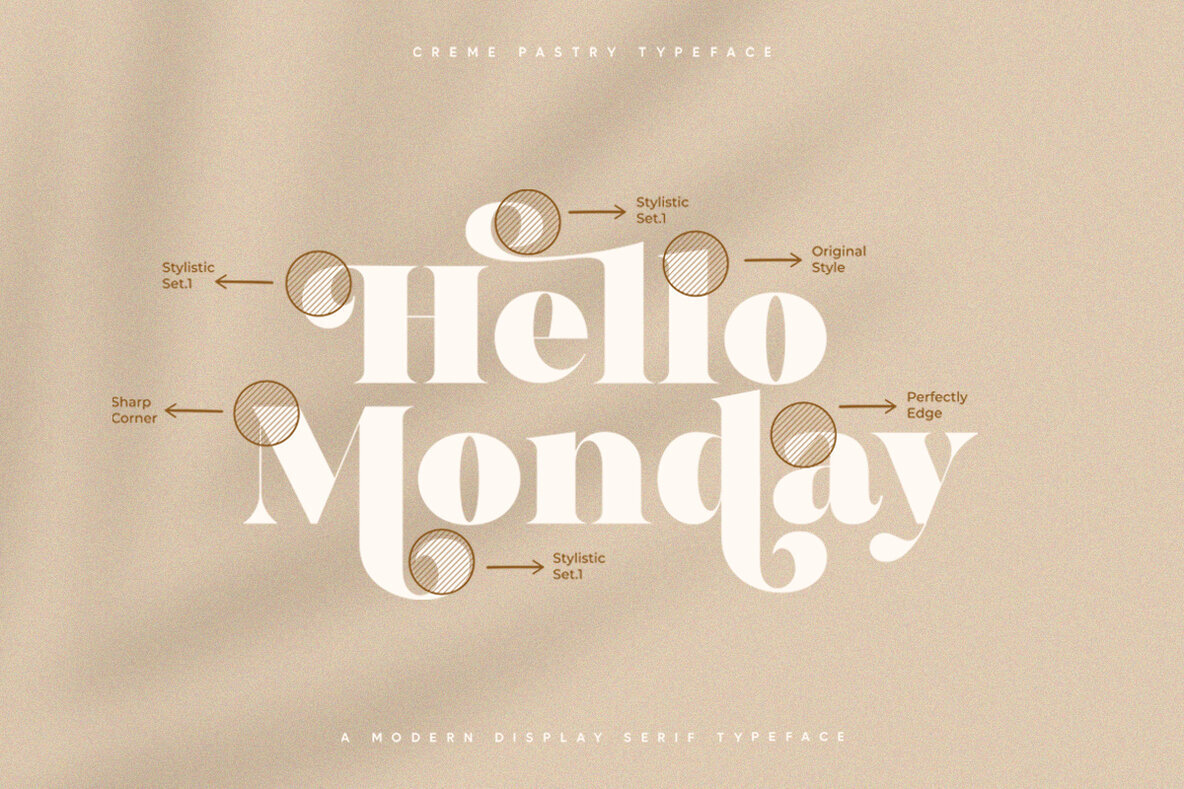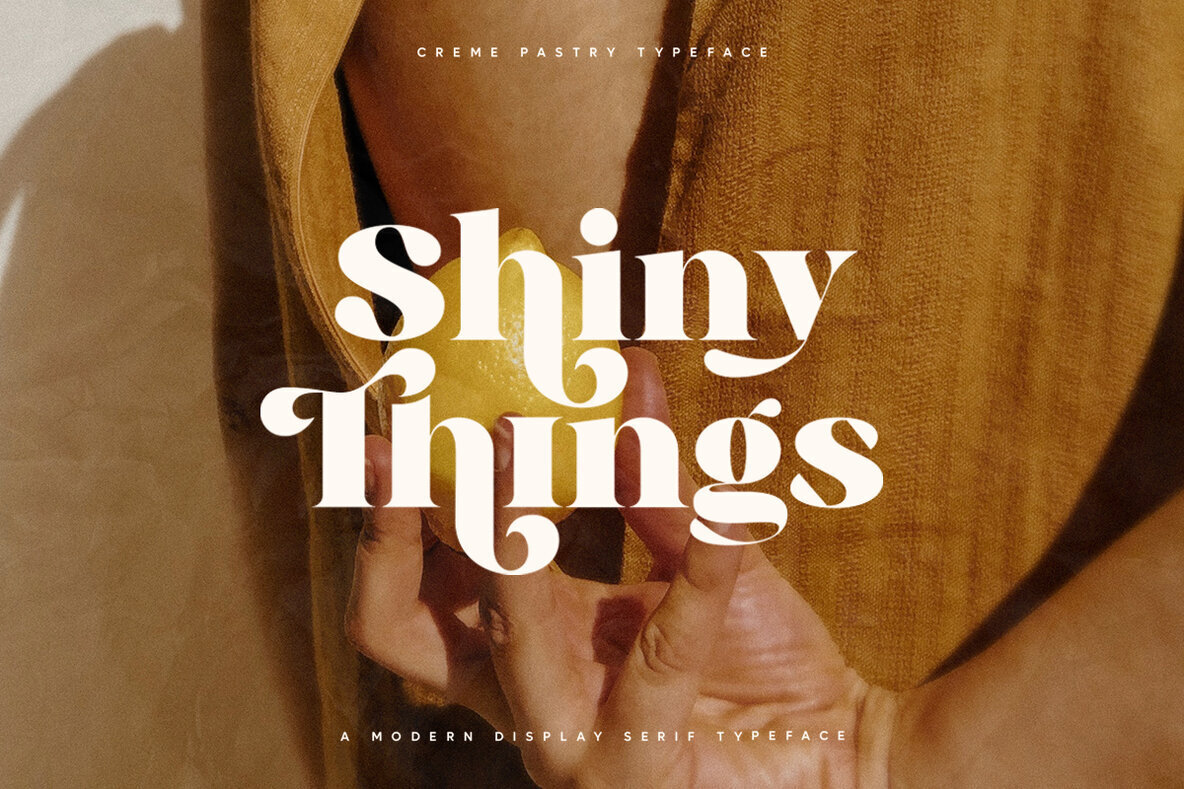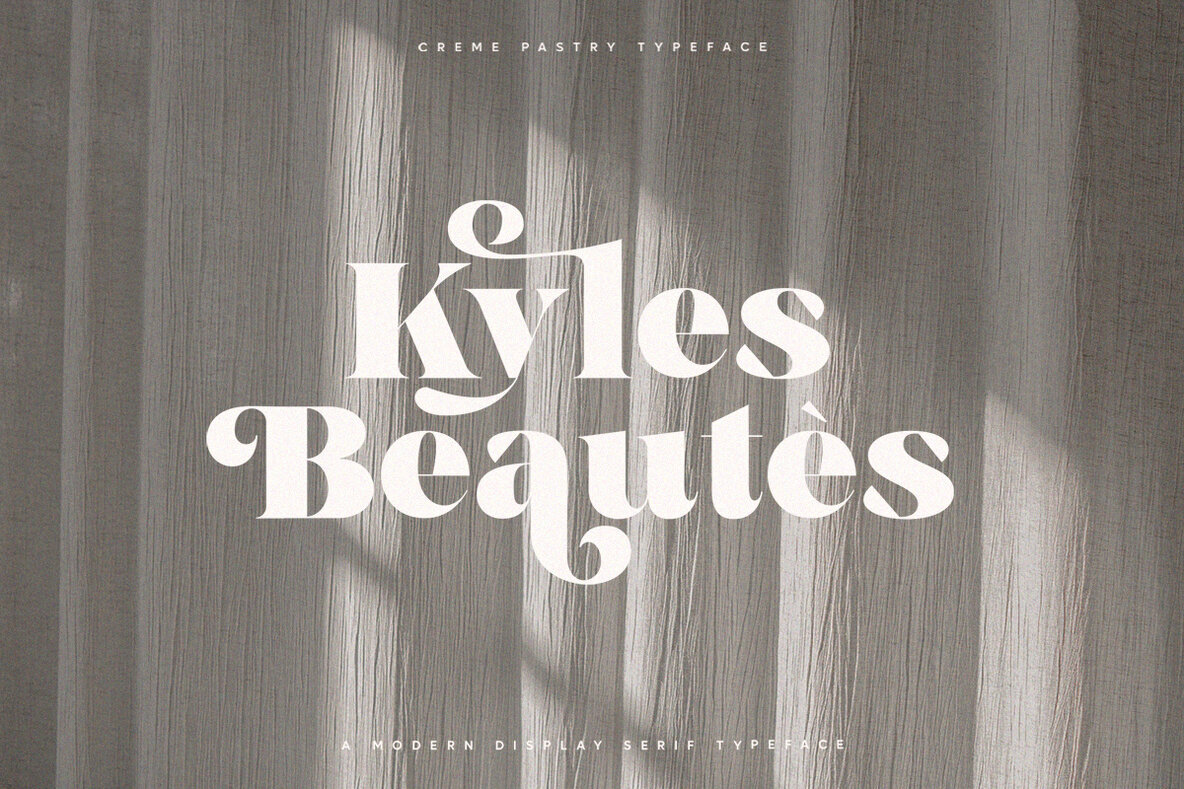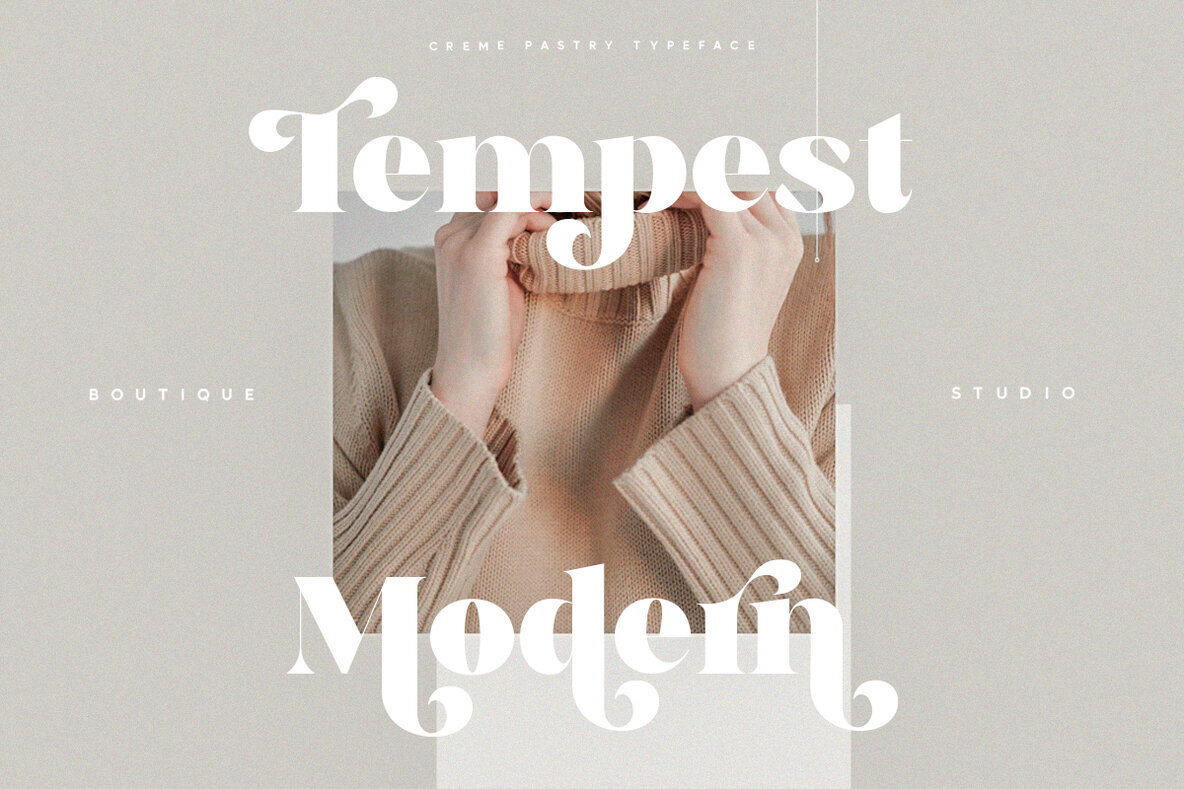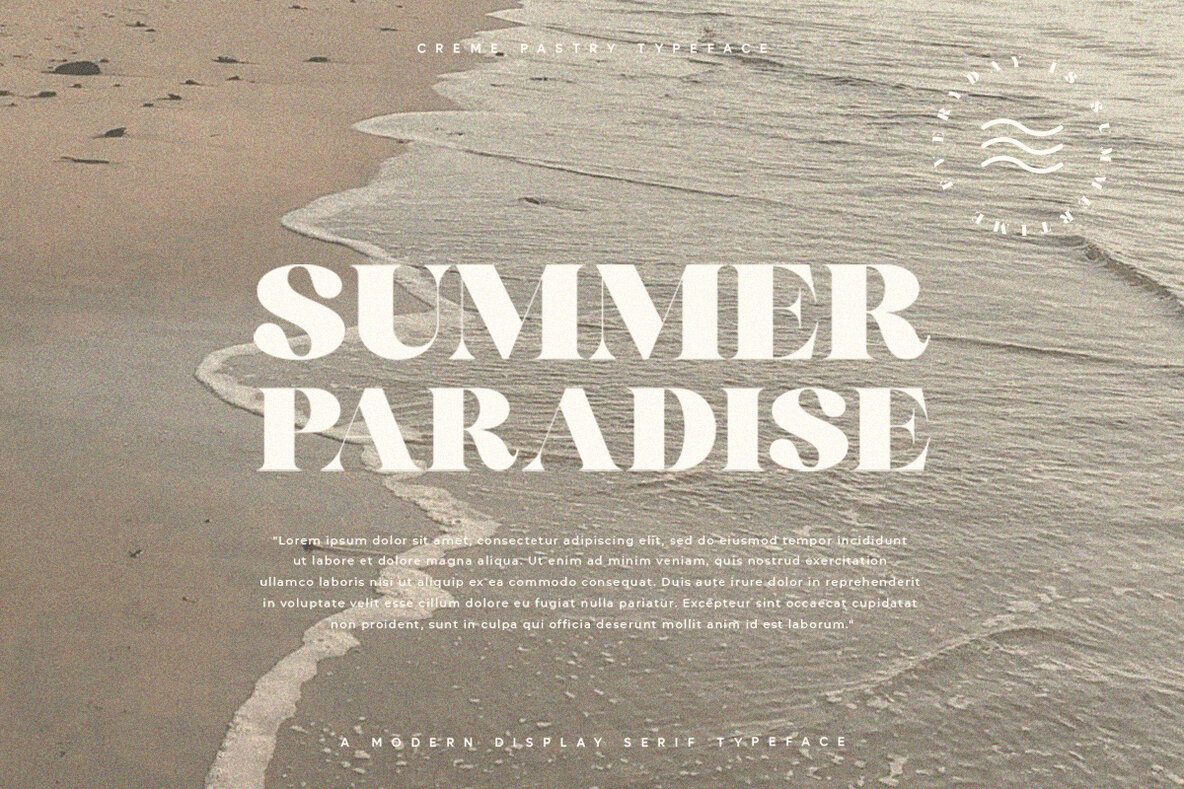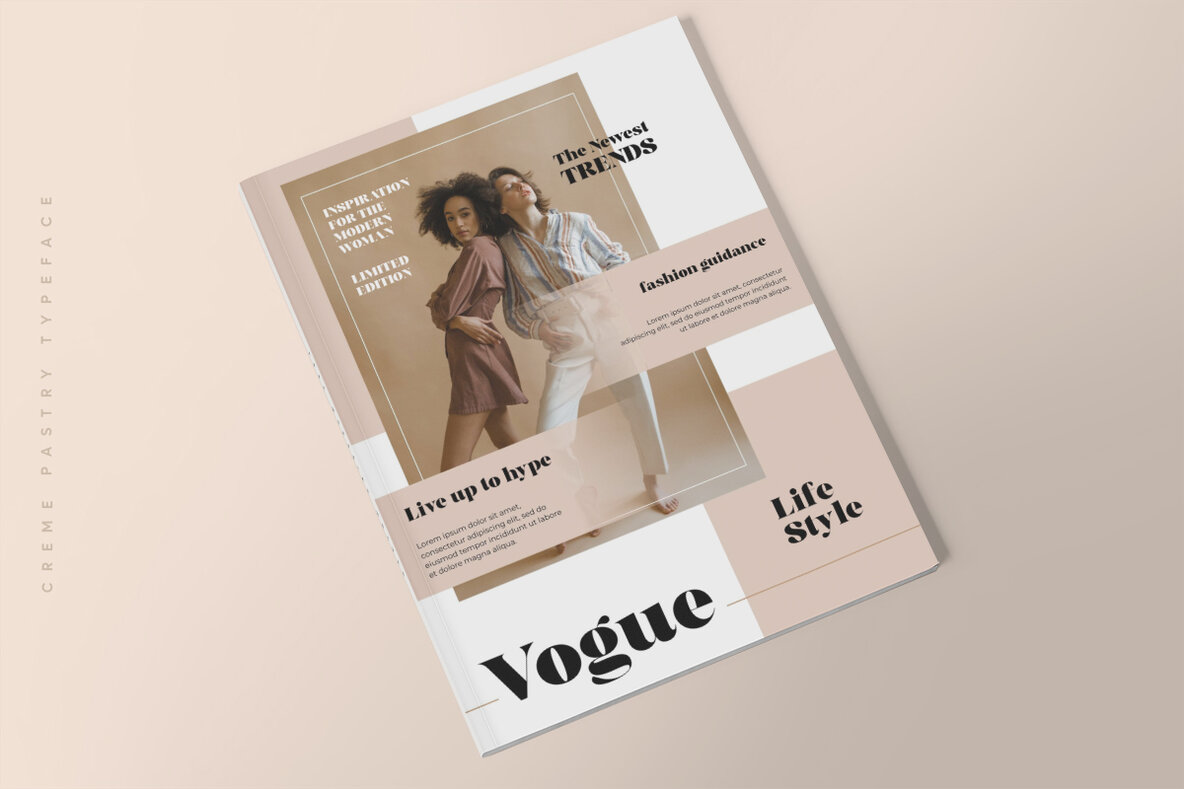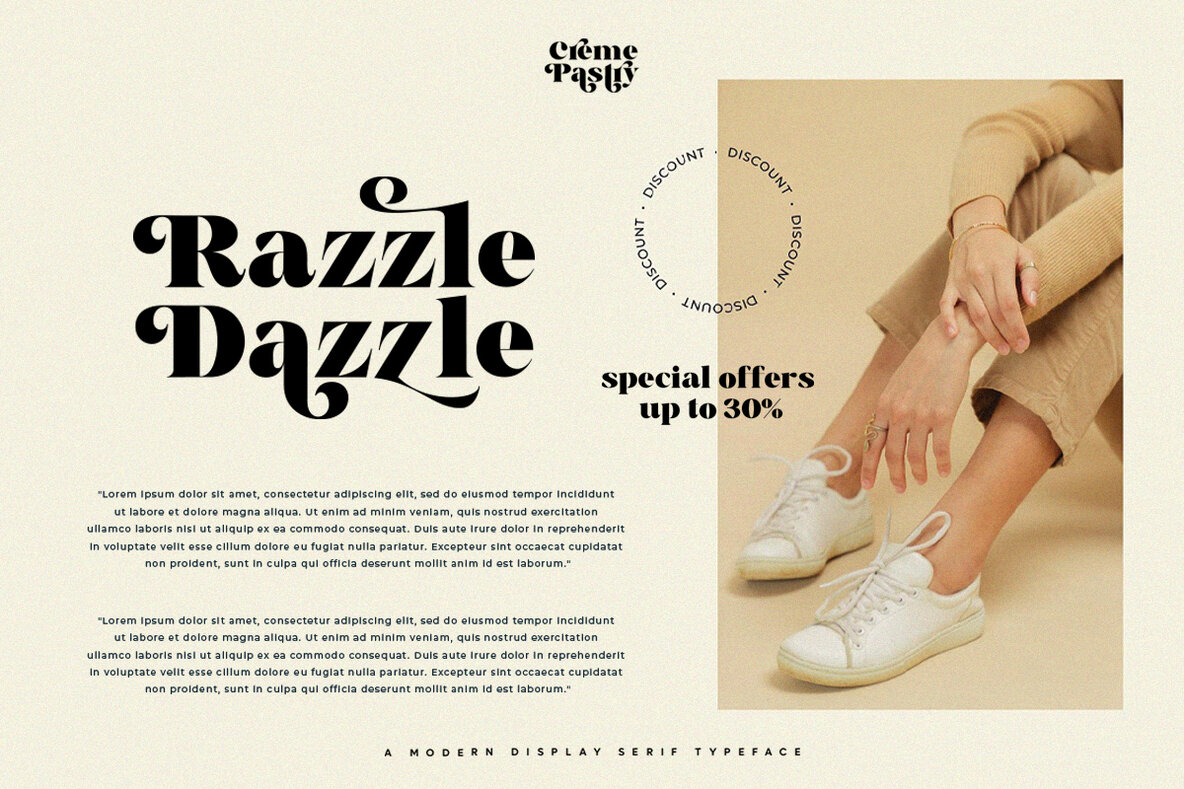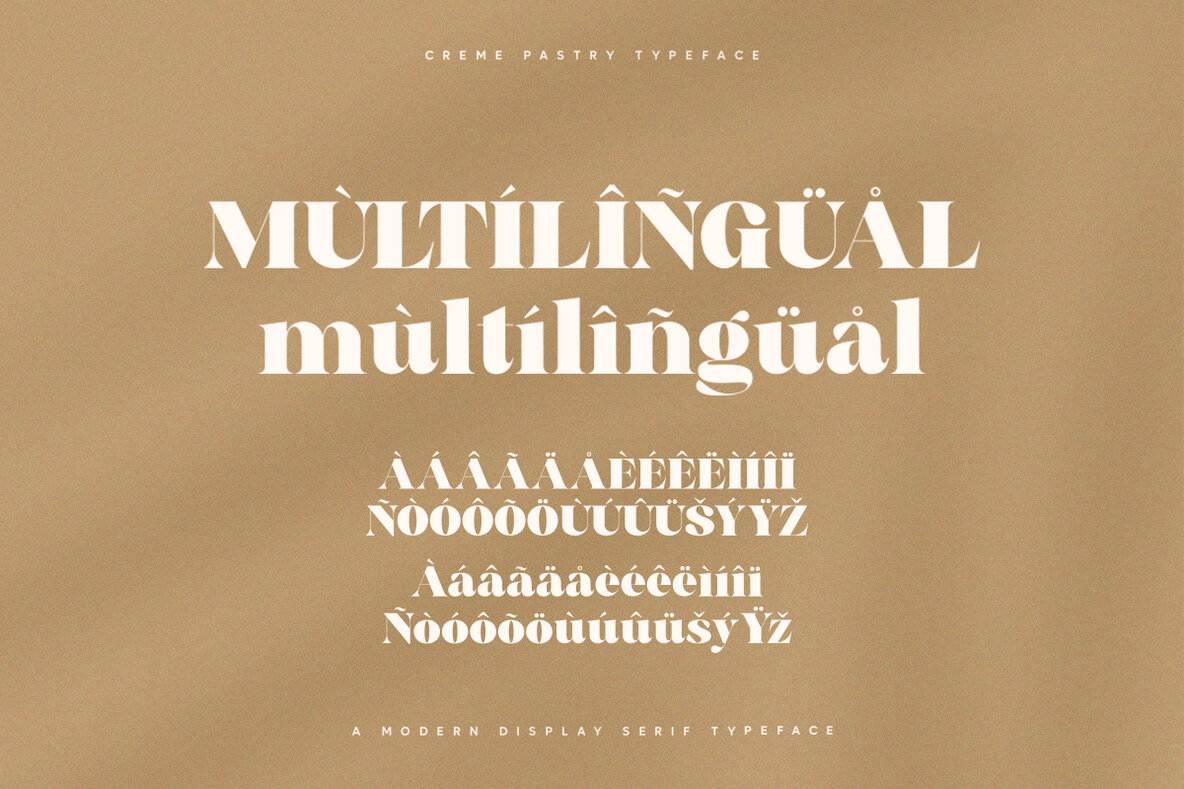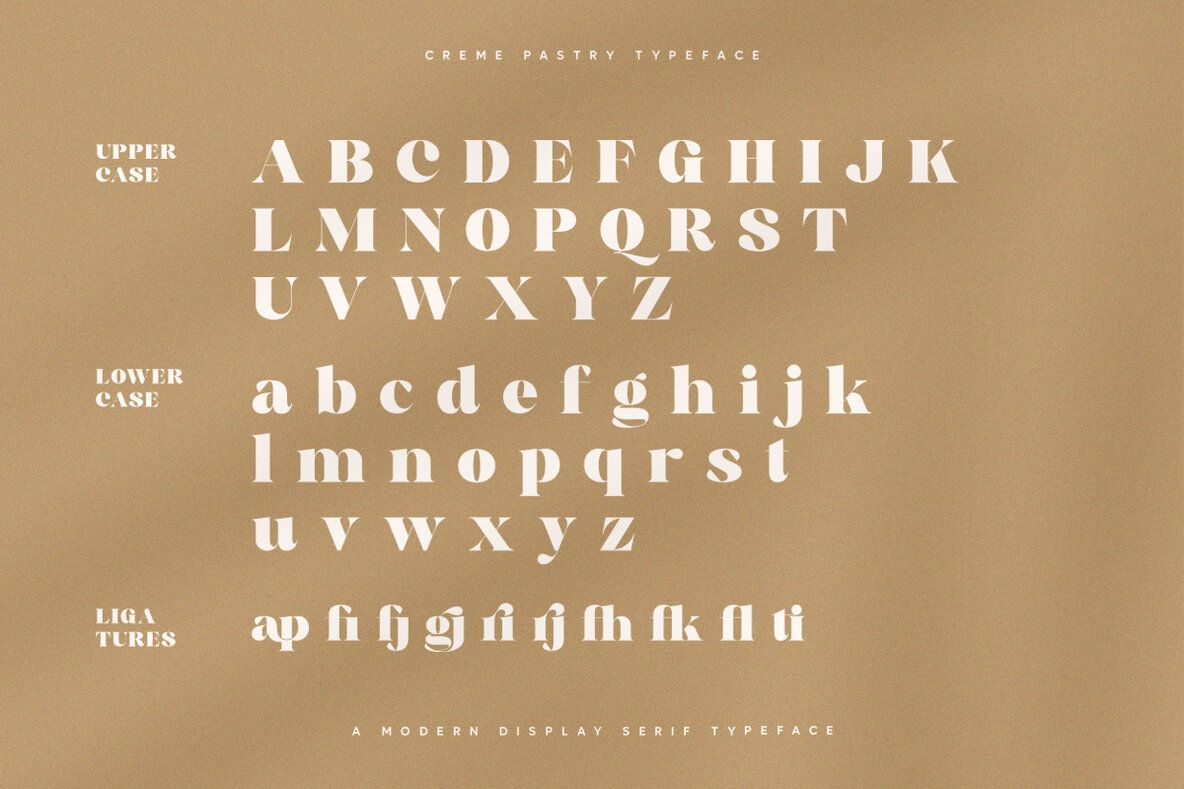
Creme Pastry Font
Creme Pastry
Creme Pastry is a contemporary display typeface infused with the elegance of chic style. Designed with modern themes in mind, it offers versatility and a sophisticated aesthetic that makes it ideal for graphic design ventures seeking a unique flair. This typeface is crafted for a design-savvy audience, elevating any project with its distinctive character. Whether working on branding, advertising, or social media graphics, Creme Pastry will enhance your creative work.Creme Pastry: Modern Display Font with Stylish Flair